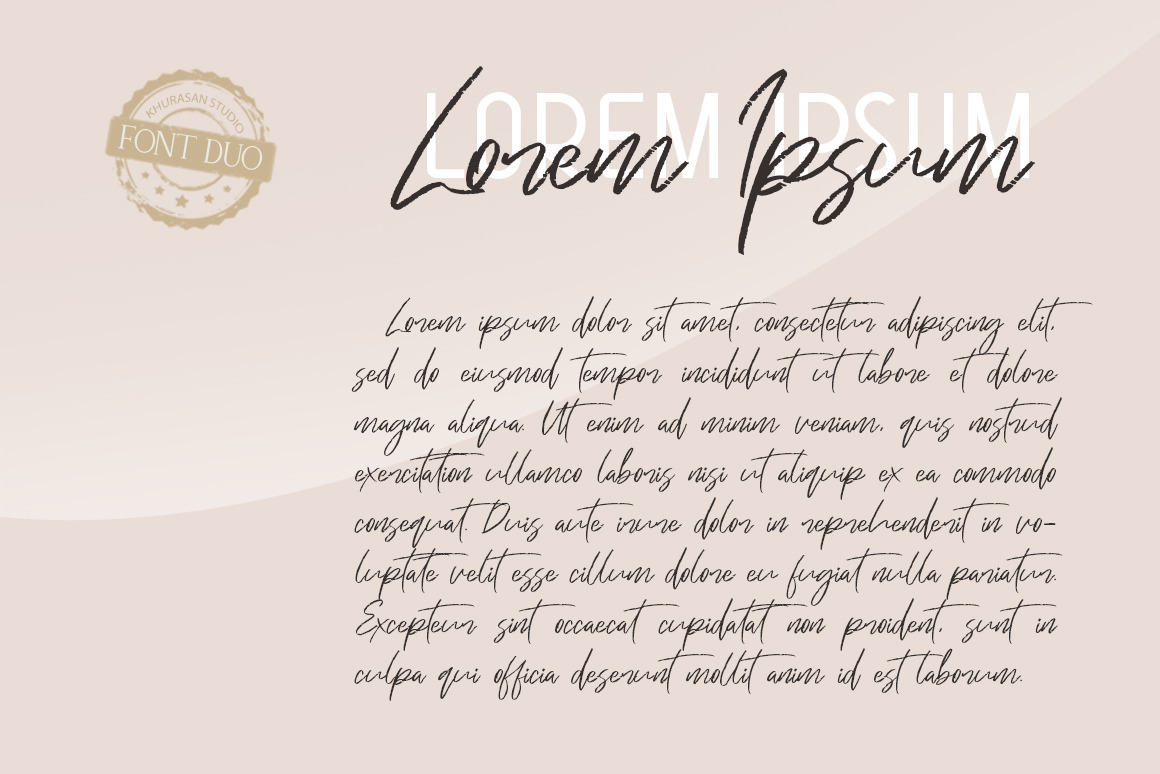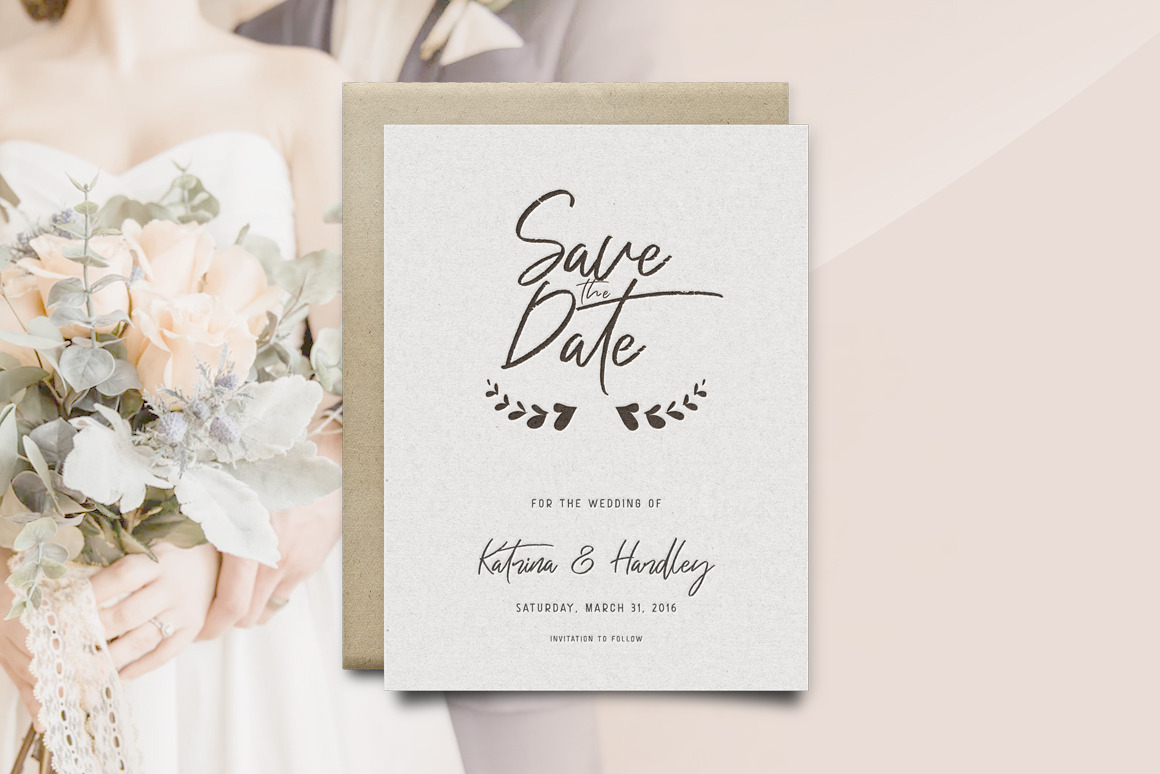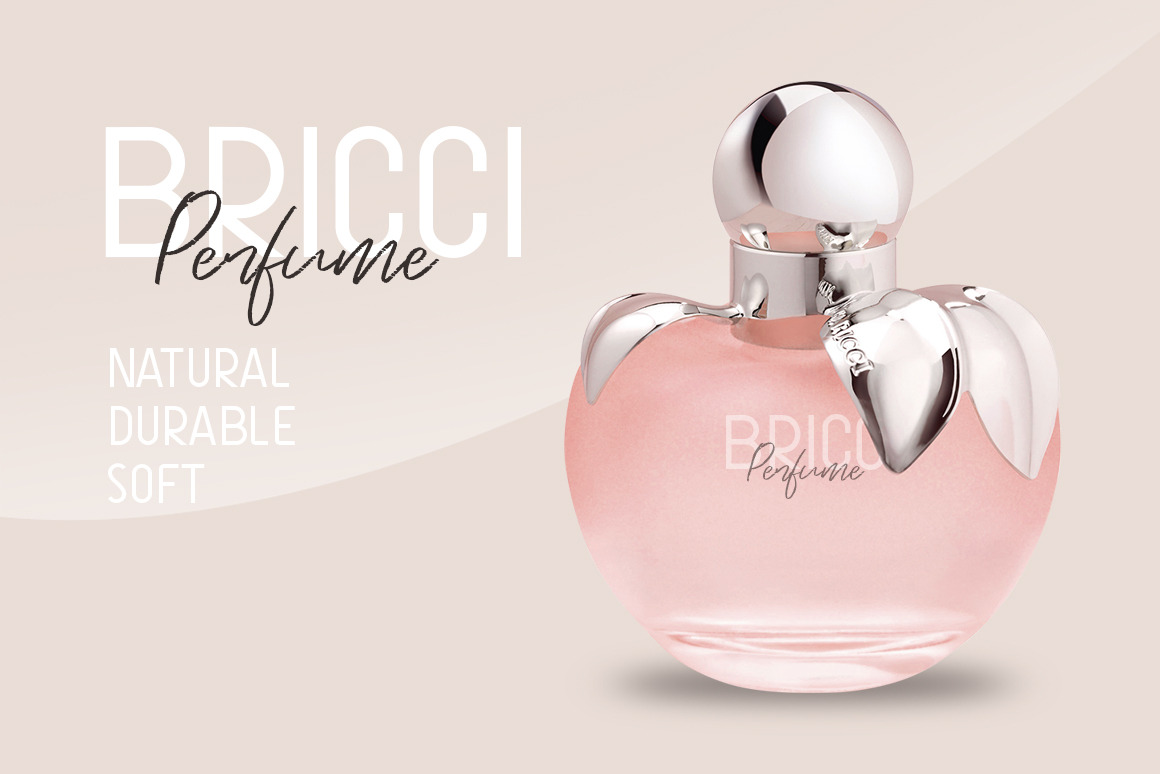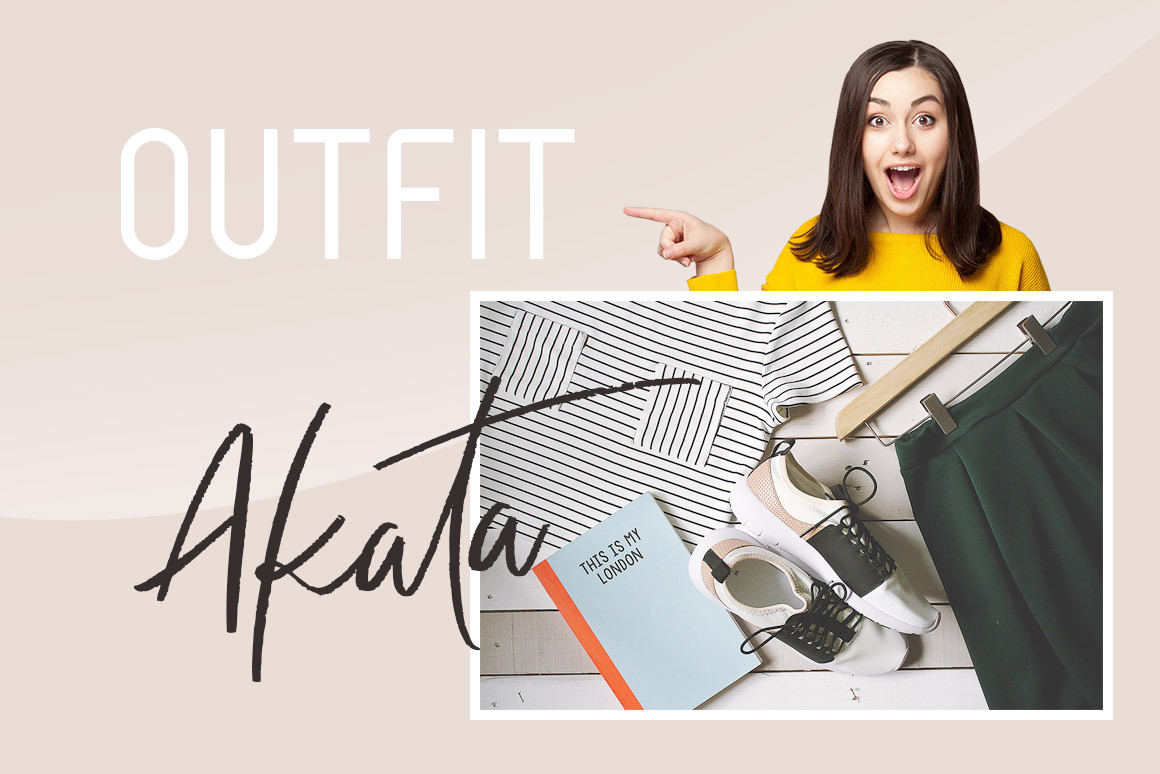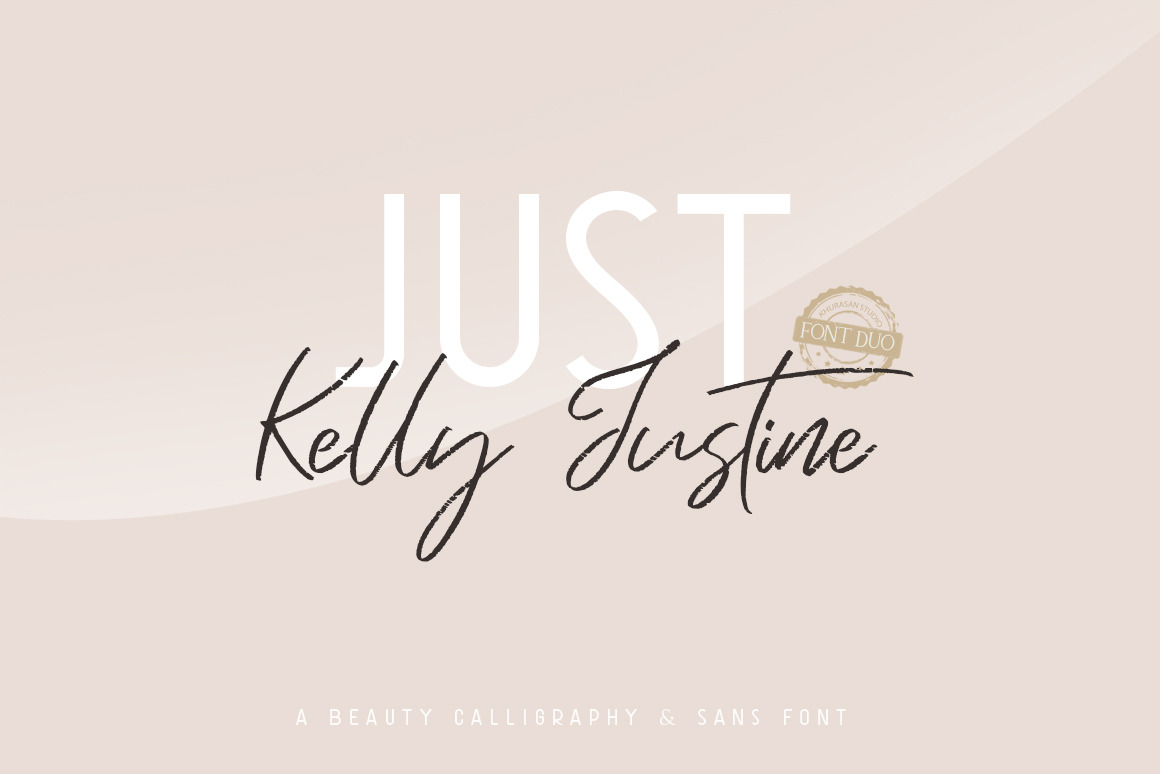
Just Kelly Justine Font Duo
The Just Kelly Justine Font is a fun modern script font, fresh & modern style with Sans font. You can combine script and sans to get amazing results. Just Kelly Justine Font suitable for logo, branding, greeting card, poster and any design that you create. Files Included: Just Kelly Justine Script (ttf, otf & woff) Just Kelly Justine Sans (ttf, otf & woff) Thank you for checking and i hope you enjoy it. Always put your heart into it and don’t worry to try. I hope you have as much fun using it as i did making it.